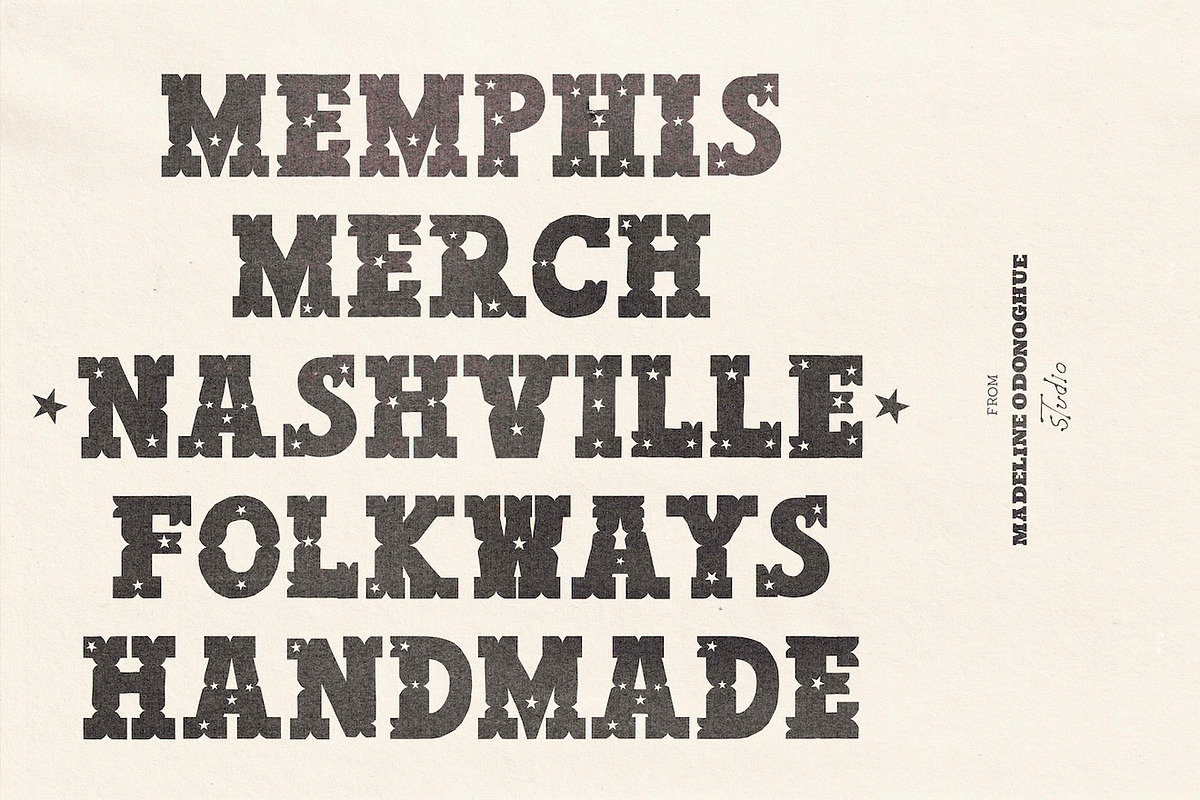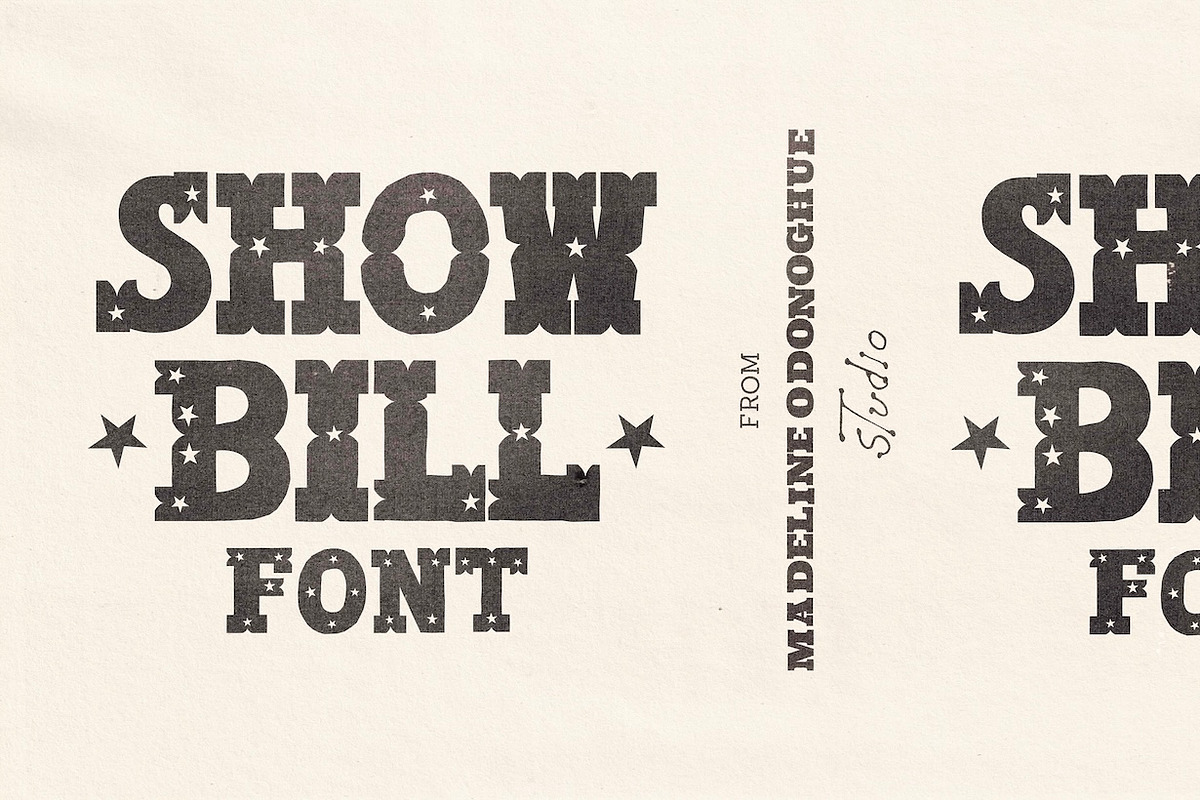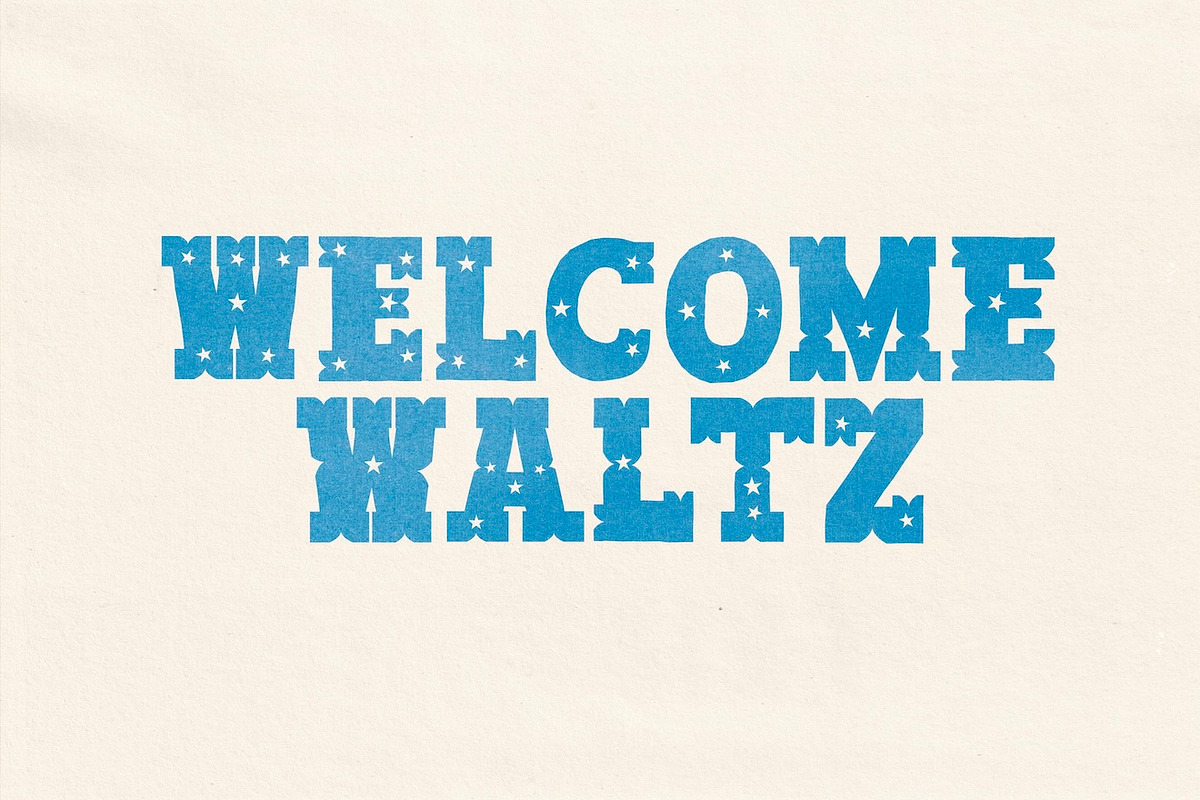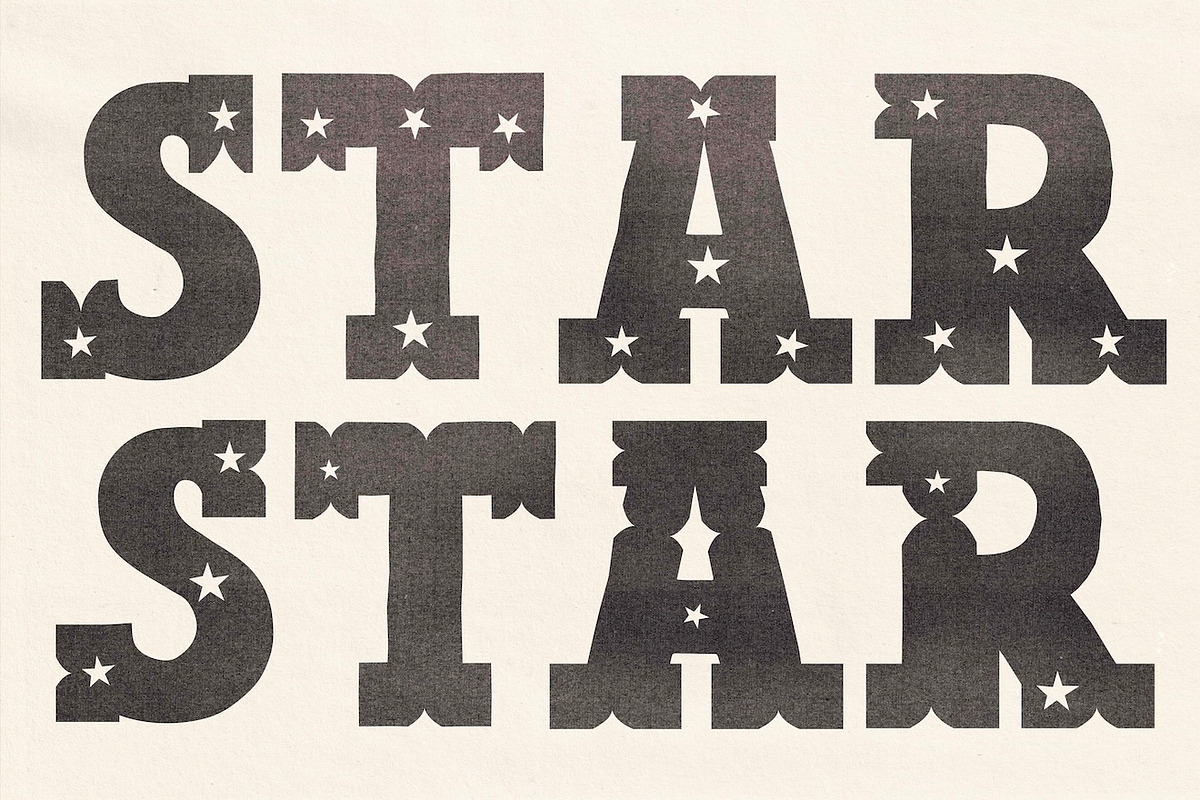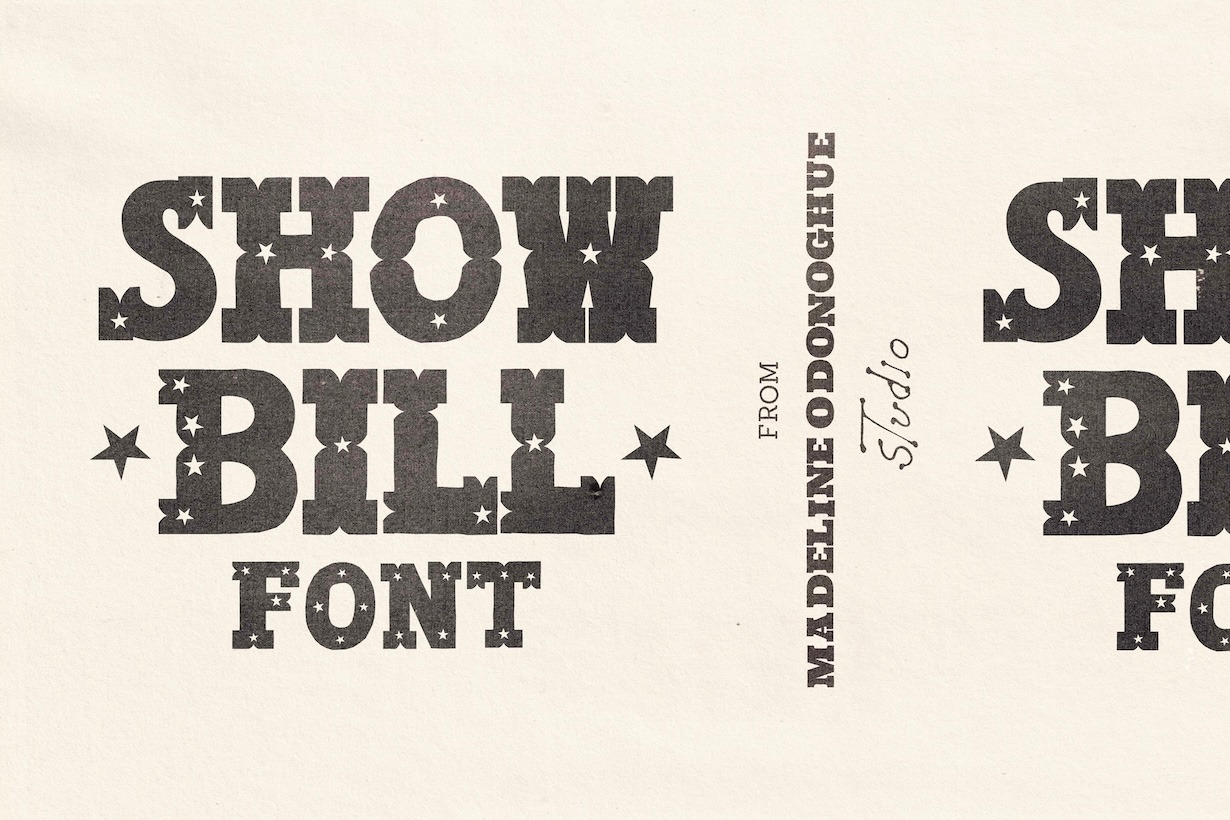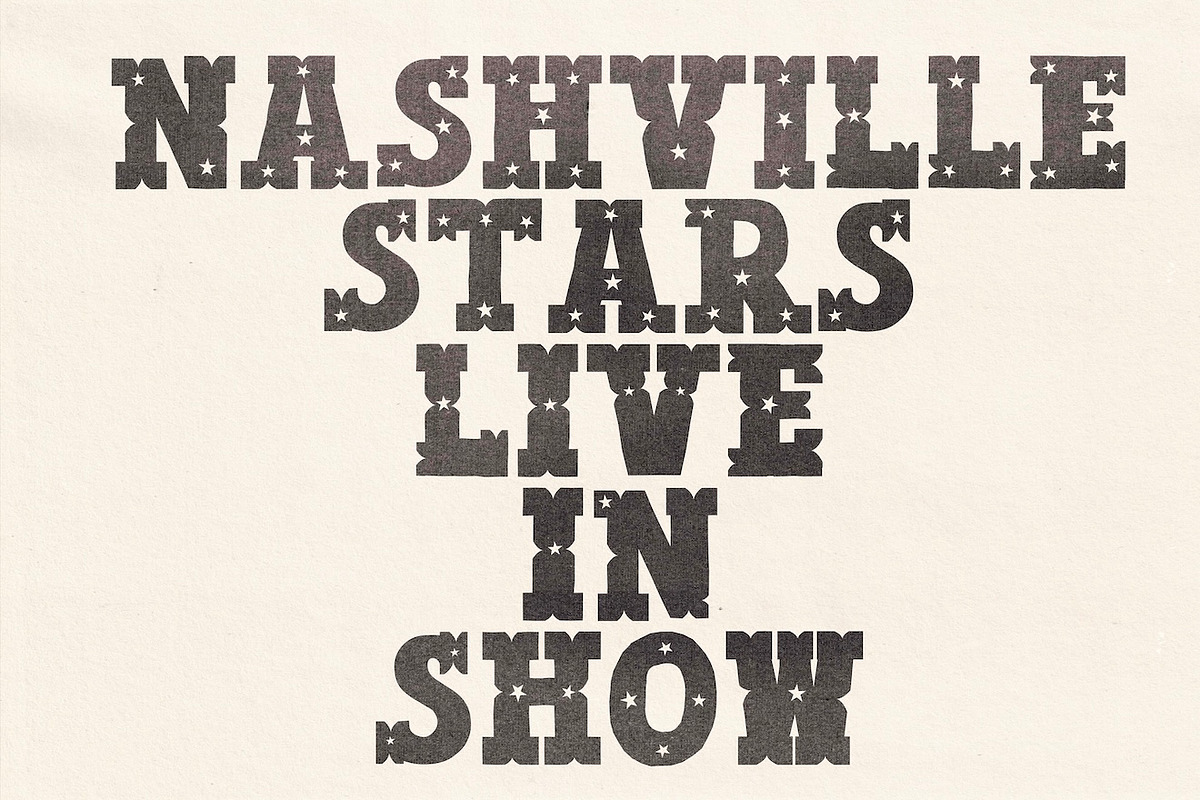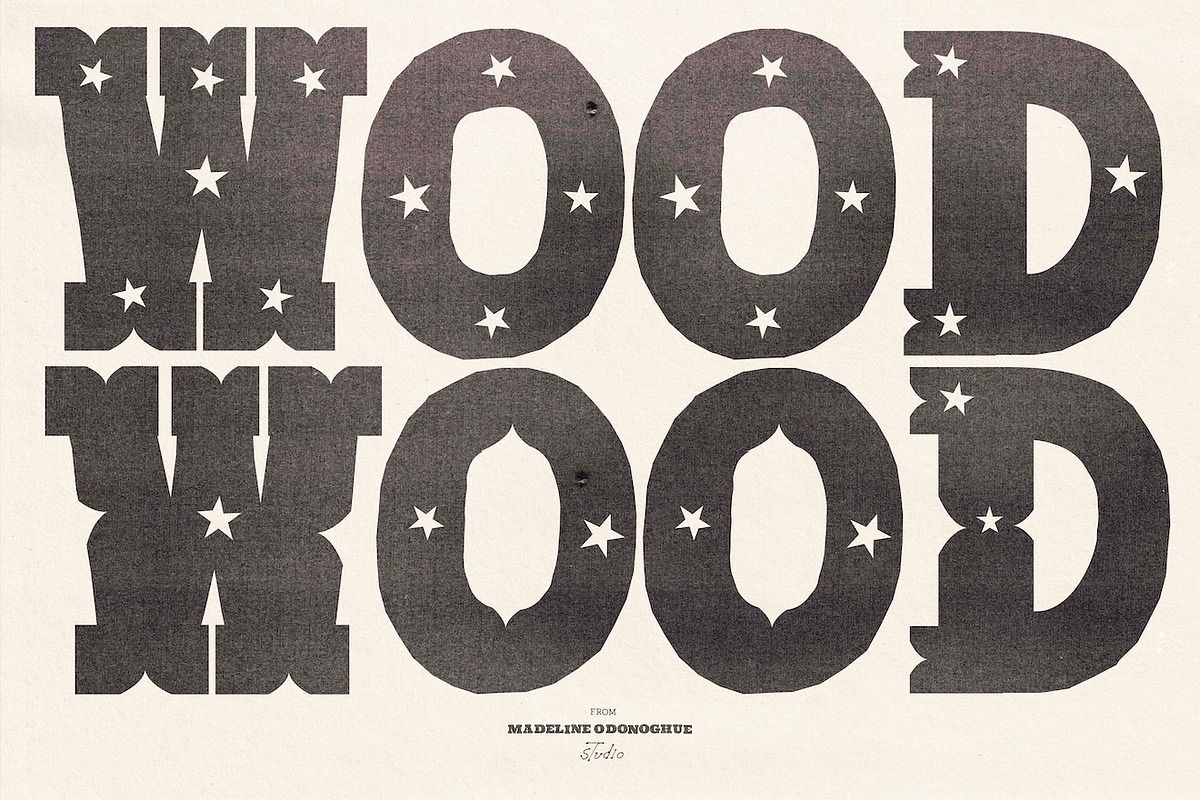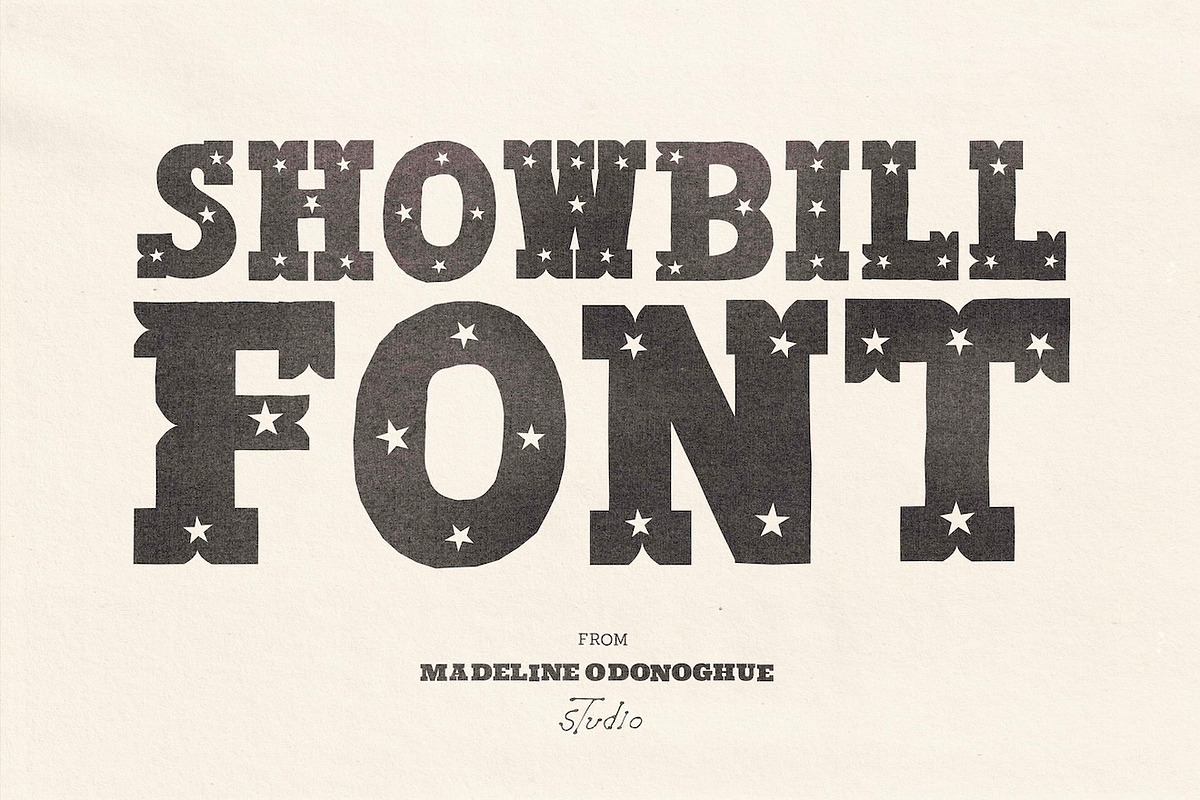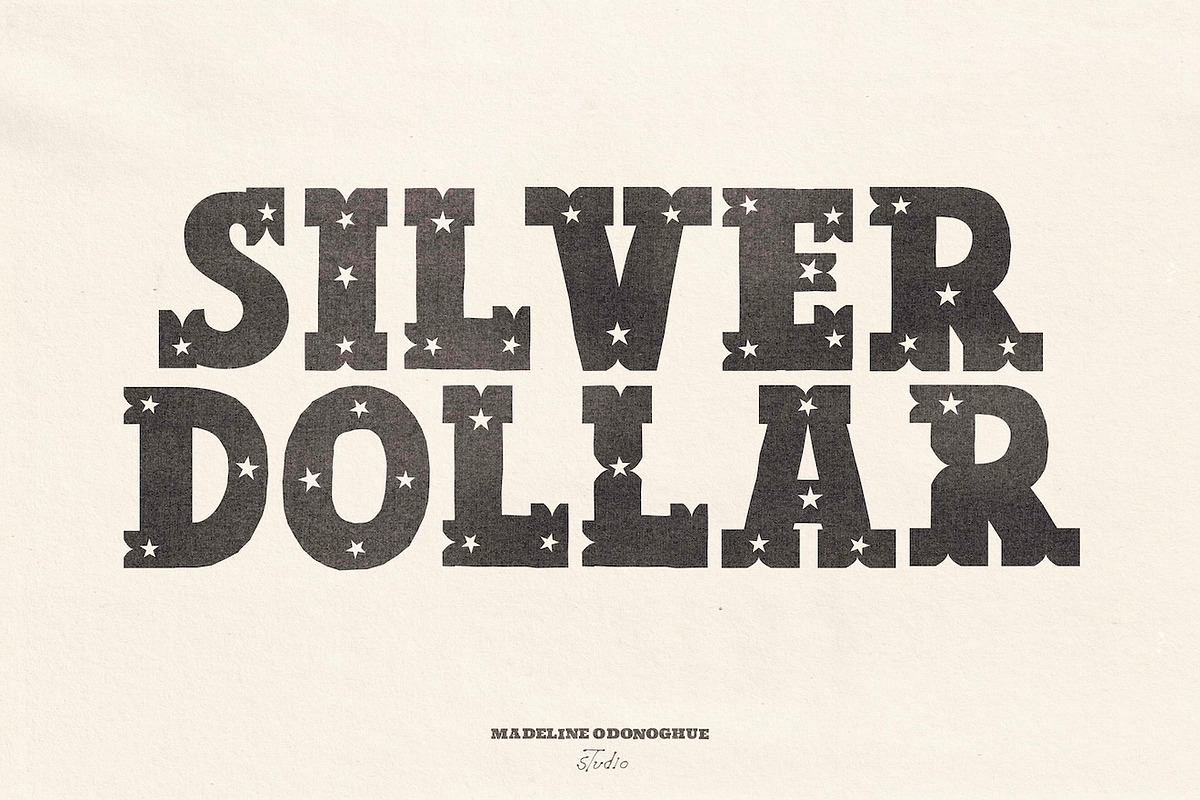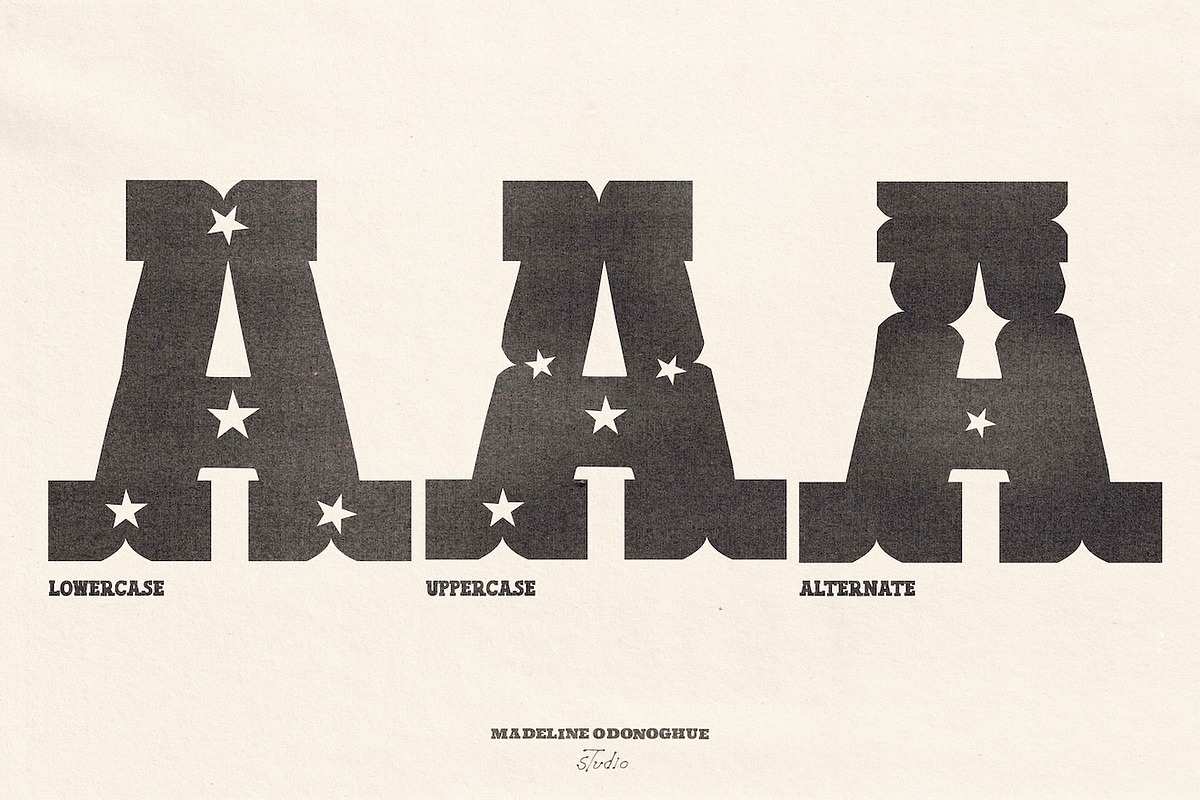
ShowBill Hand Drawn Western Font
Showbill is a hand-crafted display font inspired by old wood type, Western showbills, circus posters, theatre bills, saloon signs and vintage entertainment printing.
Chunky, imperfect and deliberately mismatched, Showbill imagines a collection of old wooden letters that have been cut, carved, printed and decorated over time. Heavy slabs, bulbous curves, strange notches, exaggerated serifs and uneven proportions sit alongside tiny wonky stars — almost as though they’ve been stuck onto an old painted sign or carved directly into the type.
The irregularity is intentional. No two letters quite agree on the rules.
Rather than behaving like a perfectly matched digital alphabet, ShowBill is designed to feel like letters pulled one by one from an old wood-type suitcase and assembled into something new.
THREE WAYS TO PLAY
The a–z keys contain the standard ShowBill letterforms.
The A–Z keys reveal a second, more ornate set of uppercase-style forms.
And every letter also includes an additional decorative alternate, giving you even stranger versions to swap into your words and compositions.
Mix them together, repeat letters, switch in alternates and let things clash a little. Some characters are chunky, some pinched, some covered in stars, some have enormous feet or strange carved edges. They aren't supposed to match perfectly — that's the point.
ShowBill takes cues from old Western show posters, travelling entertainment, circus printing, saloons and theatrical ephemera without trying to recreate one particular historical typeface.
It's an experimental display font made to be played with — imperfect, theatrical, decorative and a little odd.
a–z standard ShowBill letterforms
A–Z more ornate ShowBill letterforms
Additional decorative alternate for every letter
Made from scratch by hand.